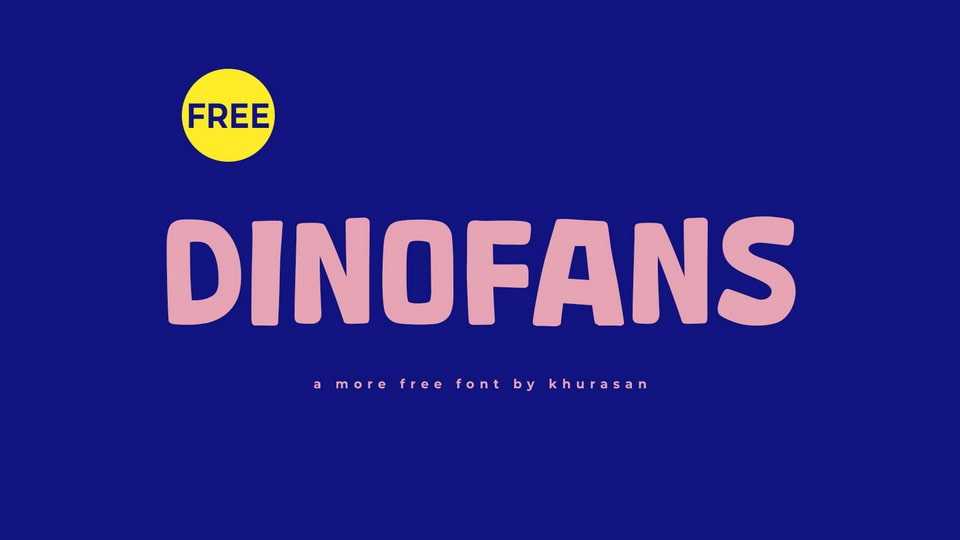
Download Dinofans font, a bold and funny hand-lettered cartoon typeface that exudes playful charm and whimsy. It features exaggerated, rounded letterforms with quirky details and a lighthearted spirit.